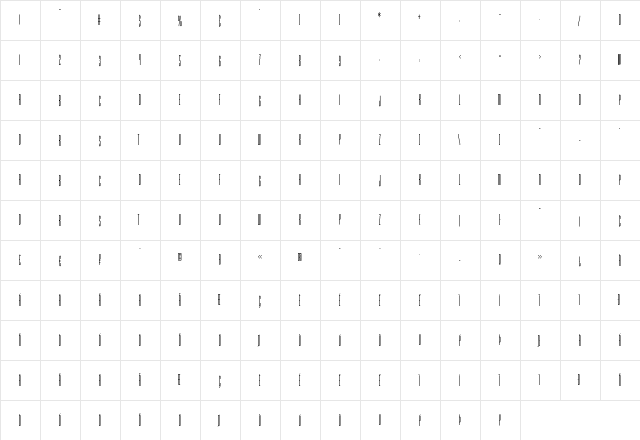
MacroscopicC Medium
Design Context for MacroscopicC Typeface
MacroscopicC is a composed and adaptable typeface that performs quietly and consistently across a wide range of design contexts.